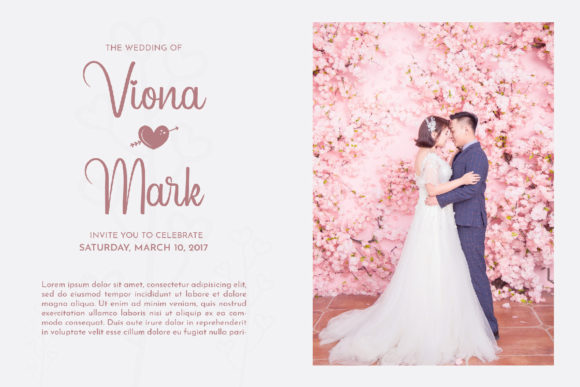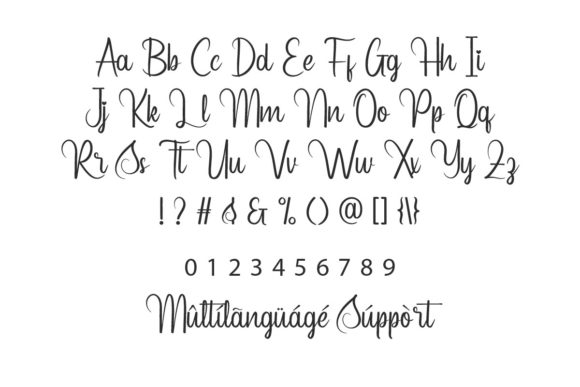
Shiny Love Font
db-ku.com - Script & Handwritten -- Shiny Love is a beautiful handwritten font, great for wedding, branding tittle, book, social media posts and more.